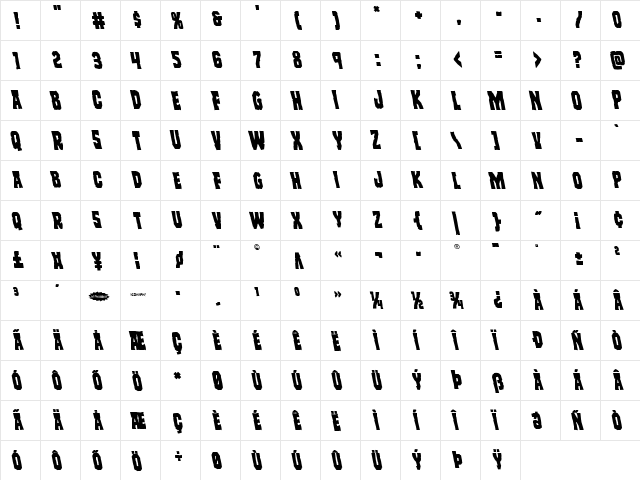
Freakfinder Leftalic Italic
Design Context for Freakfinder Leftalic Typeface
Freakfinder Leftalic is a composed and adaptable typeface that performs quietly and consistently across a wide range of design contexts. The dynamic lean of this cut emphasises speed and emphasis in any layout.
Pro Tip: Use Freakfinder Leftalic for emphasis, pull quotes, and subheadings where its slanted energy can add rhythm to the layout.